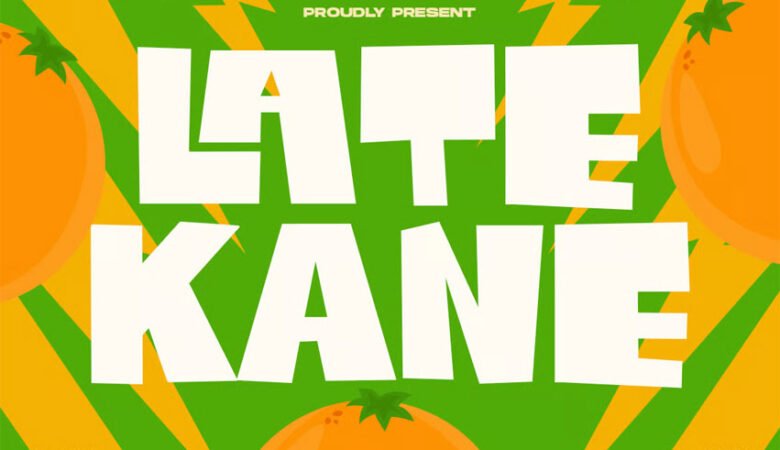
Rantosa Font
Rantosa Font is a bold and quirky display font with a hand-drawn, dynamic style. Its uneven strokes and playful vibe make it perfect for creative projects like posters, headlines, branding, social media designs, and packaging.
Rantosa’s energetic and unconventional look adds a touch of individuality and fun to your designs, making it stand out with modern flair.